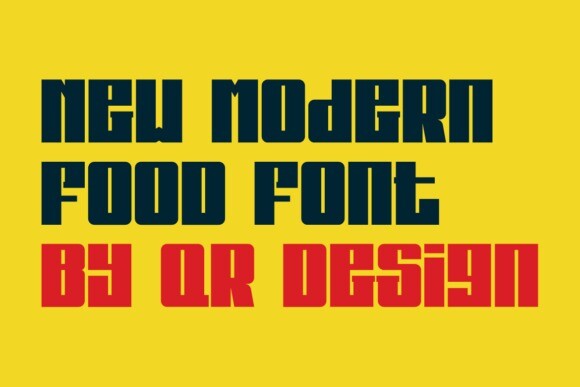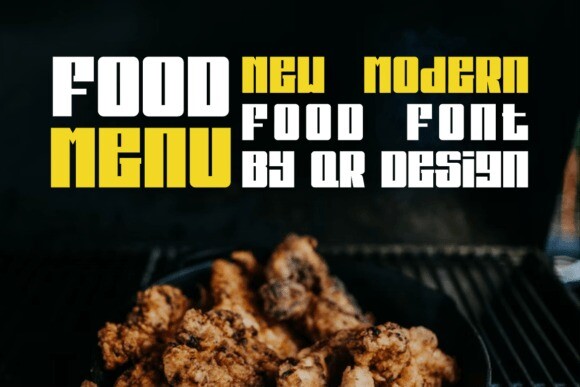
Goreng Garing Font
Goreng Garing Font is a bold and authentic display font.
The font is suitable for any branding project like logo, t-shirt printing, food, and many more.